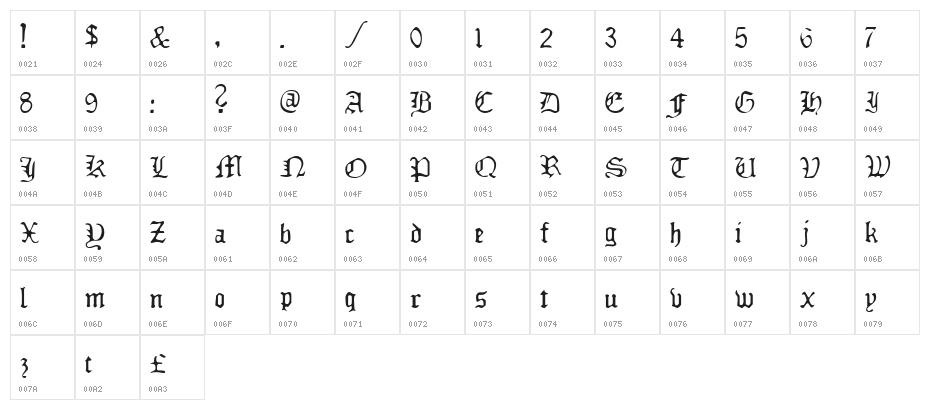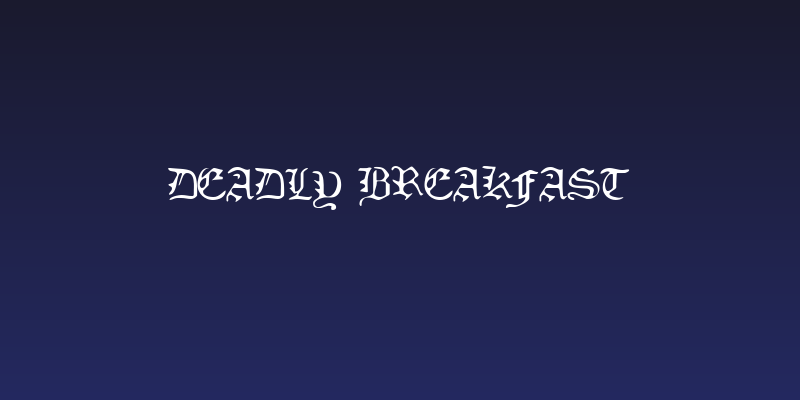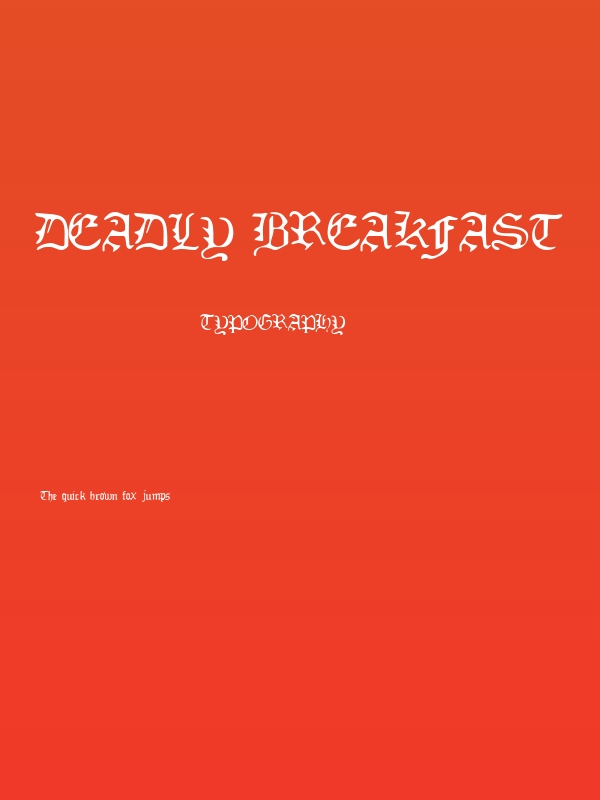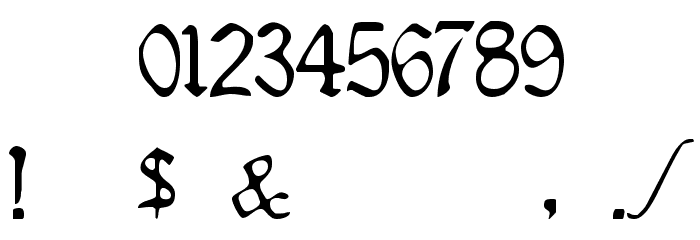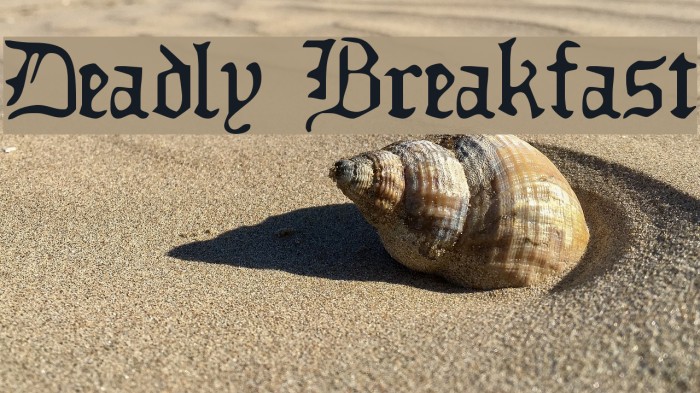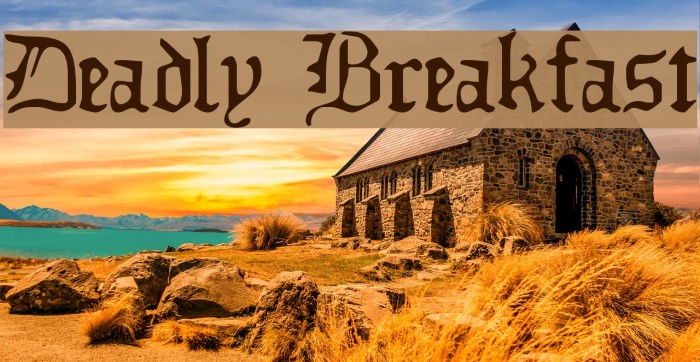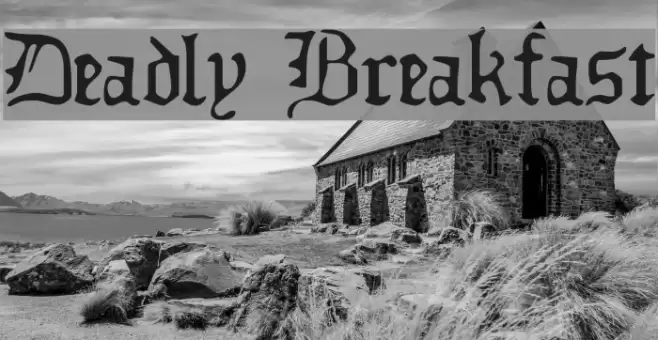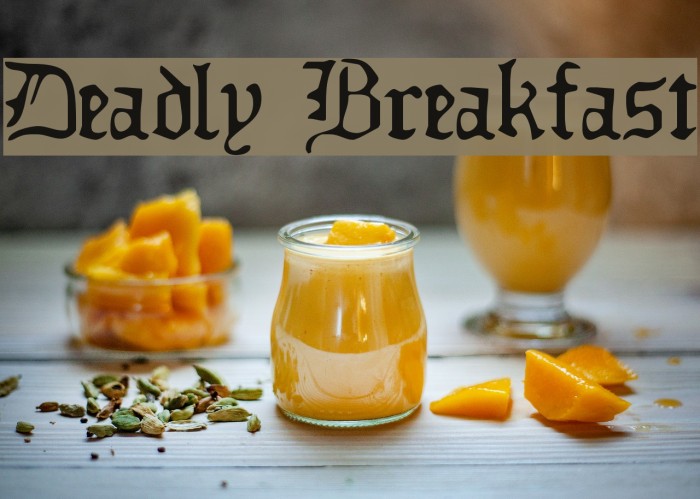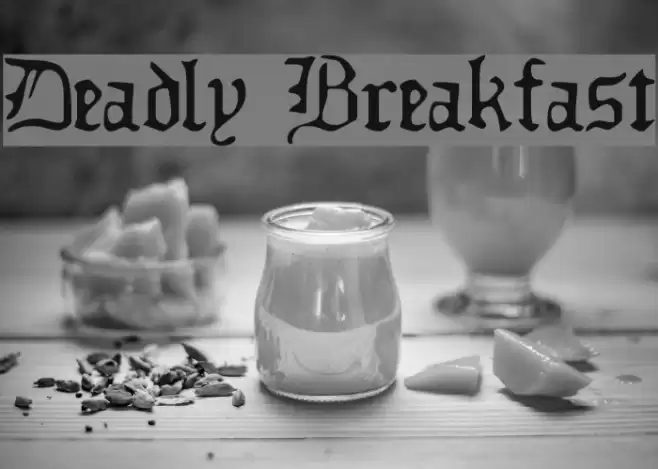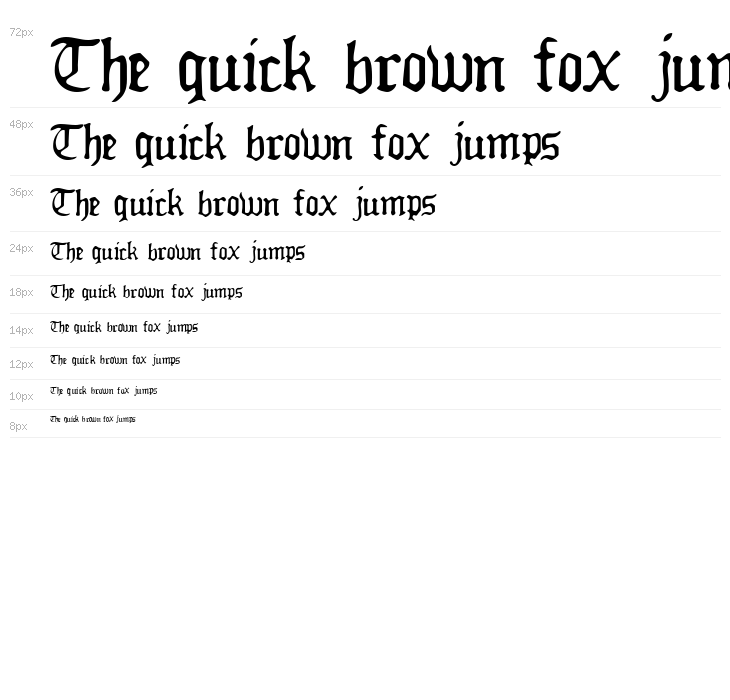
Deadly Breakfast Font
✎ Gothic
Deadly Breakfast Description
This font exudes a classic and historical feel, reminiscent of medieval manuscripts and traditional calligraphy. The characters are ornate with intricate details, featuring sharp serifs and decorative elements that give it a distinct Gothic appearance. The uppercase letters are particularly elaborate, with flourishes that extend beyond the baseline and cap height, adding to its dramatic flair. The lowercase letters maintain a consistent style, though slightly less embellished, ensuring readability while preserving the overall aesthetic. Numbers and special characters are designed to match the ornate style, making this font suitable for projects that require a touch of elegance and historical authenticity.
| Overall Style | Vintage |
| Use Case | Logos, Headlines, Decorative text |
| Proposed Projects | Ideal for historical documents, fantasy-themed designs, book covers, and event invitations. |